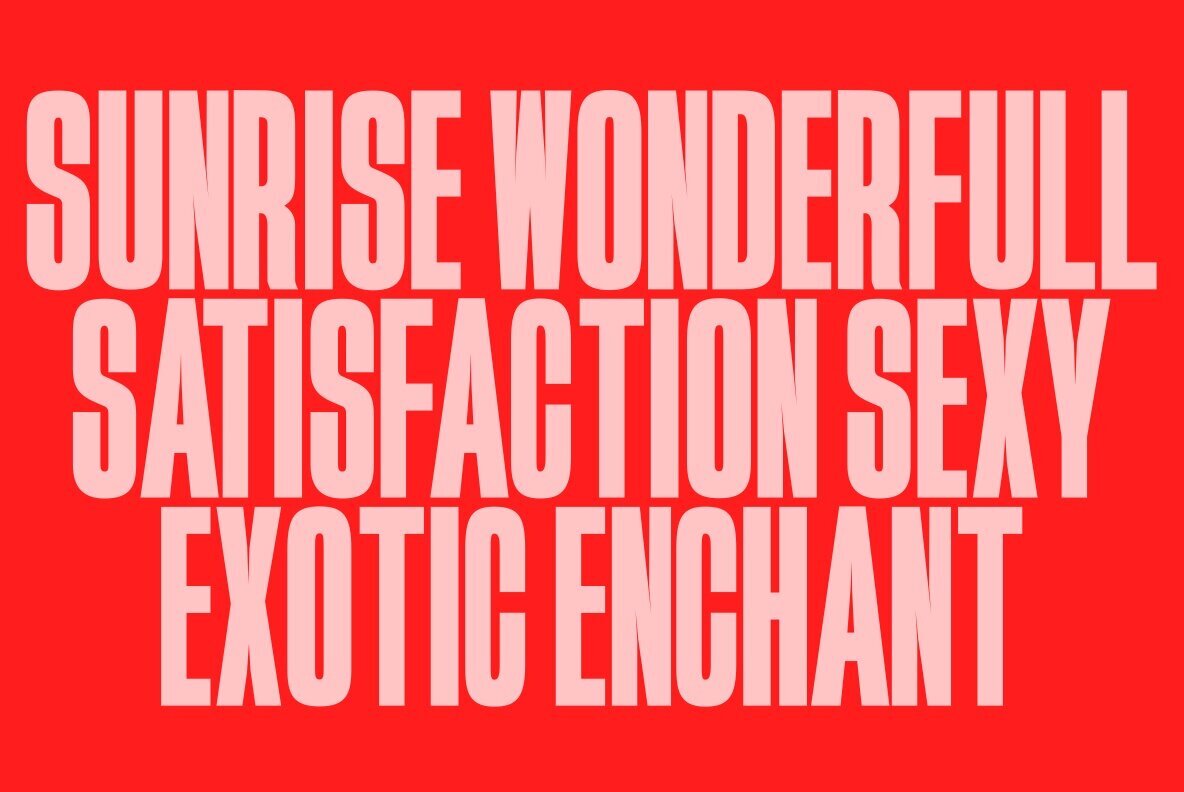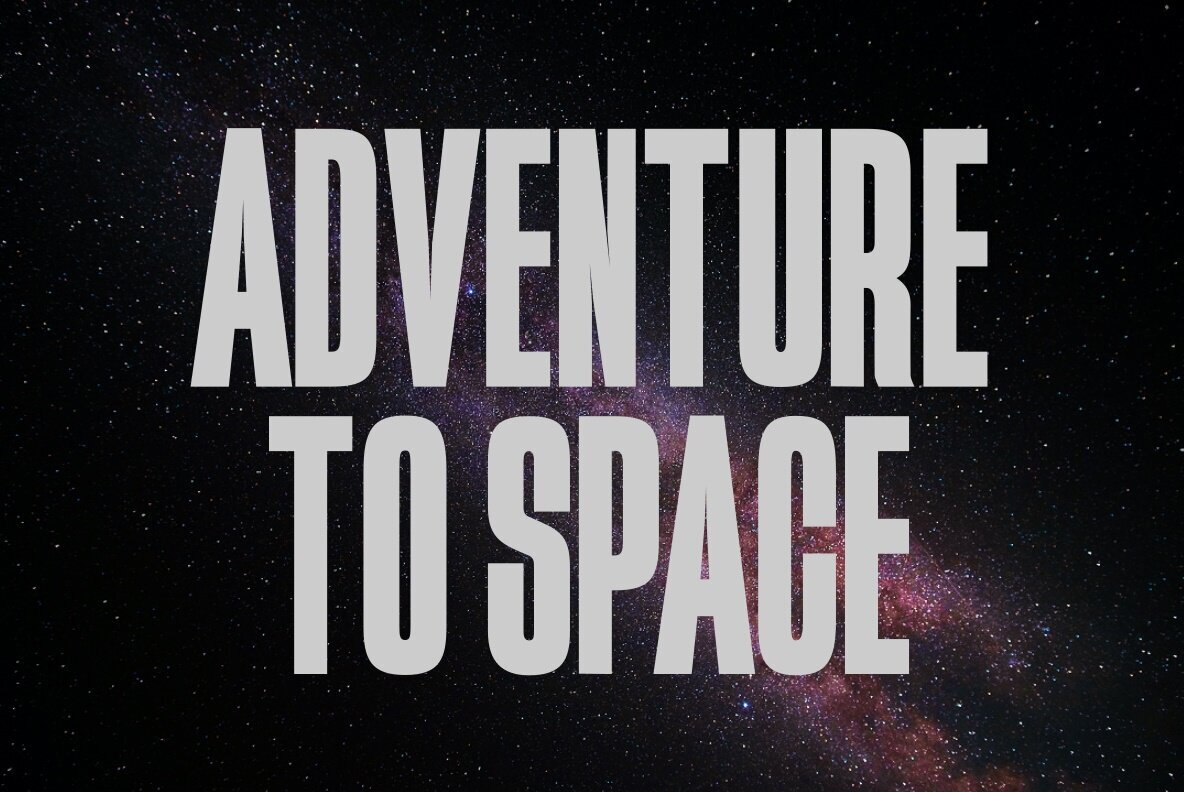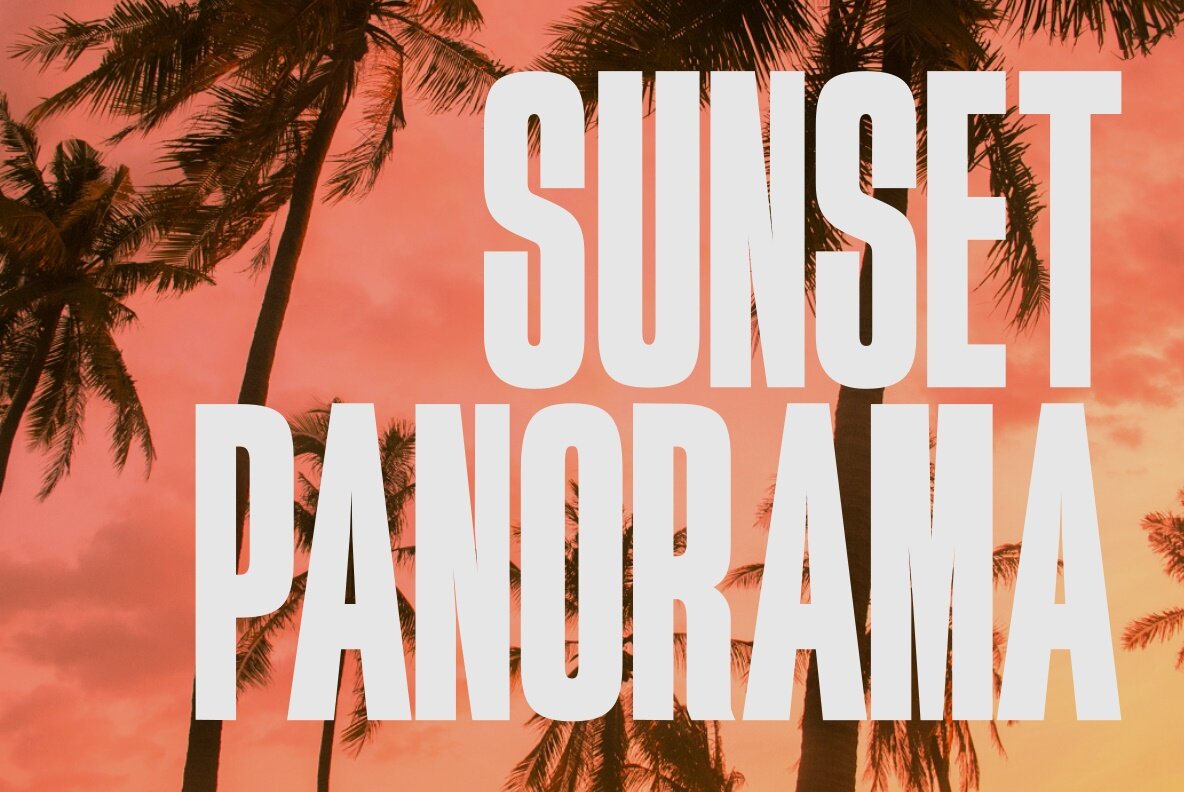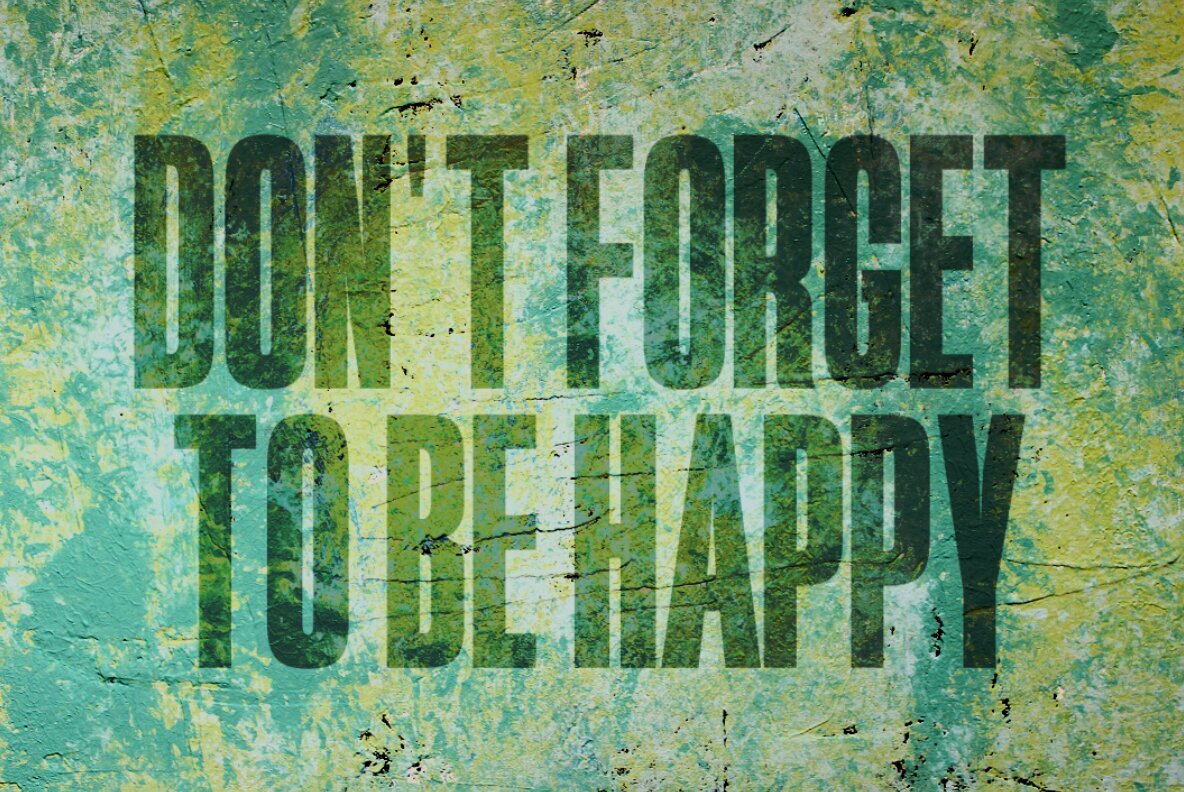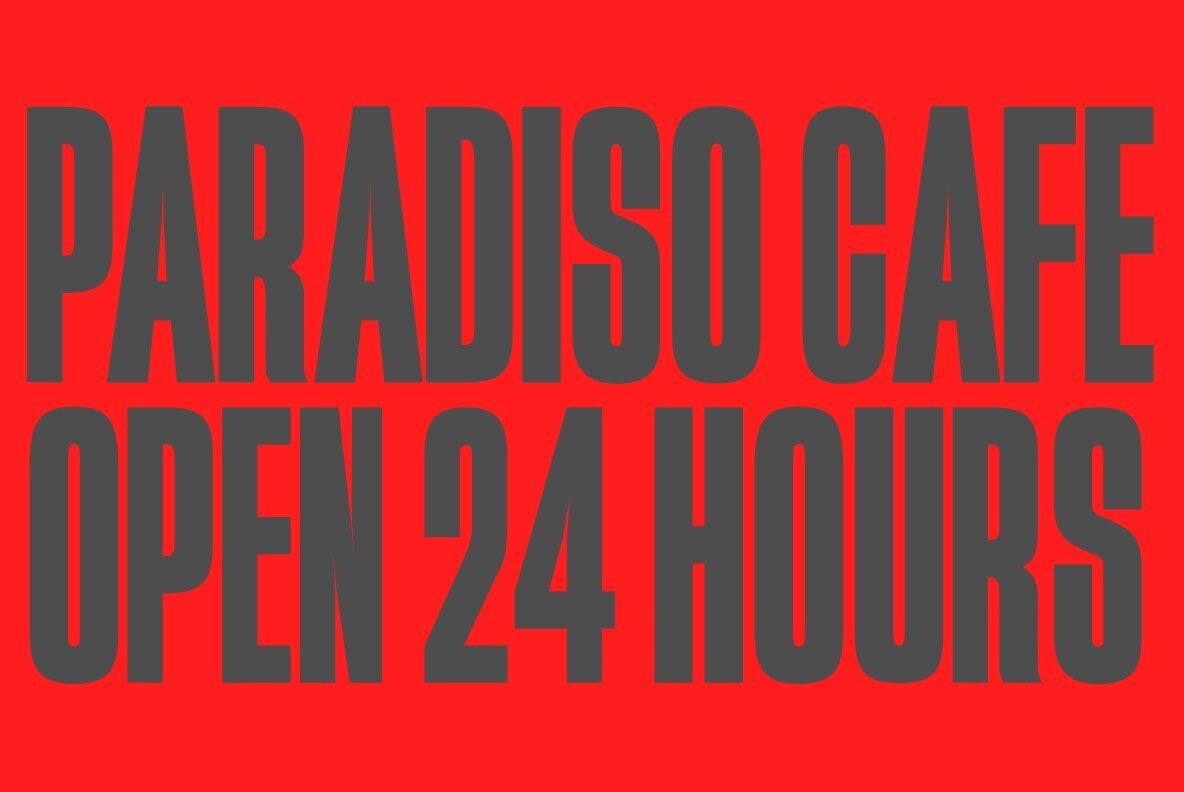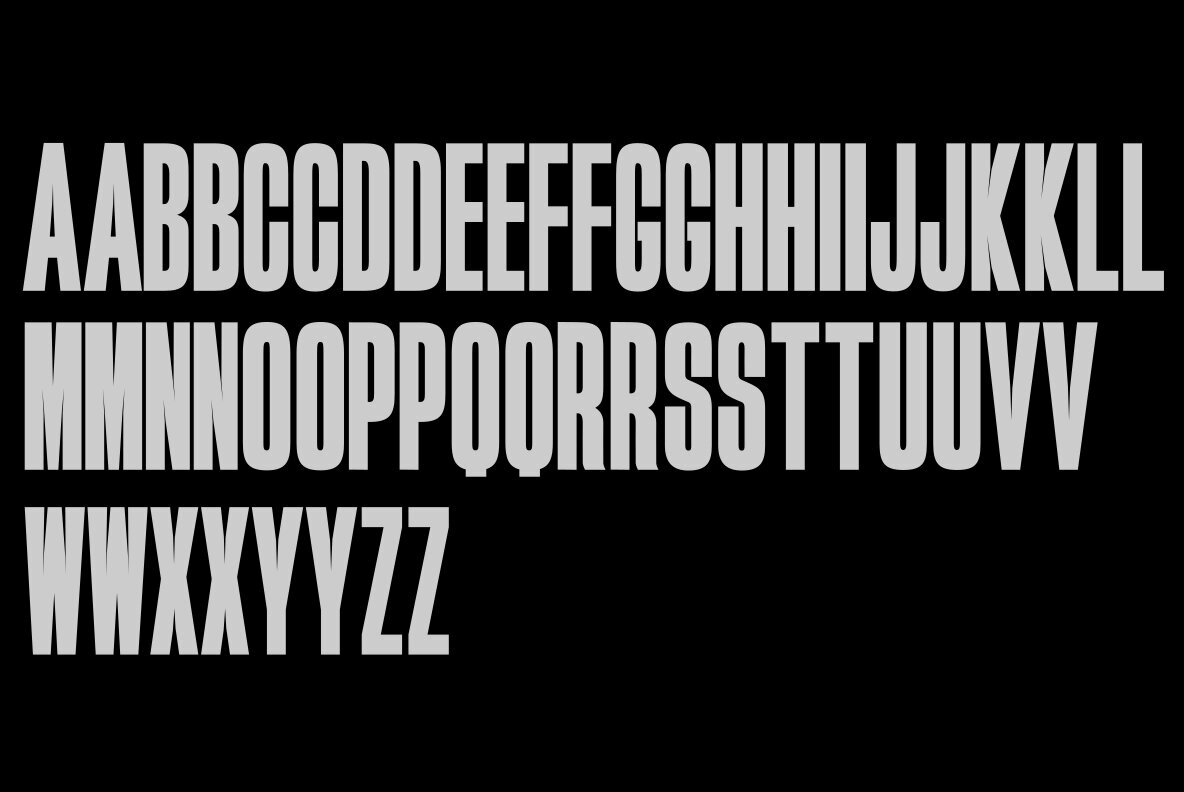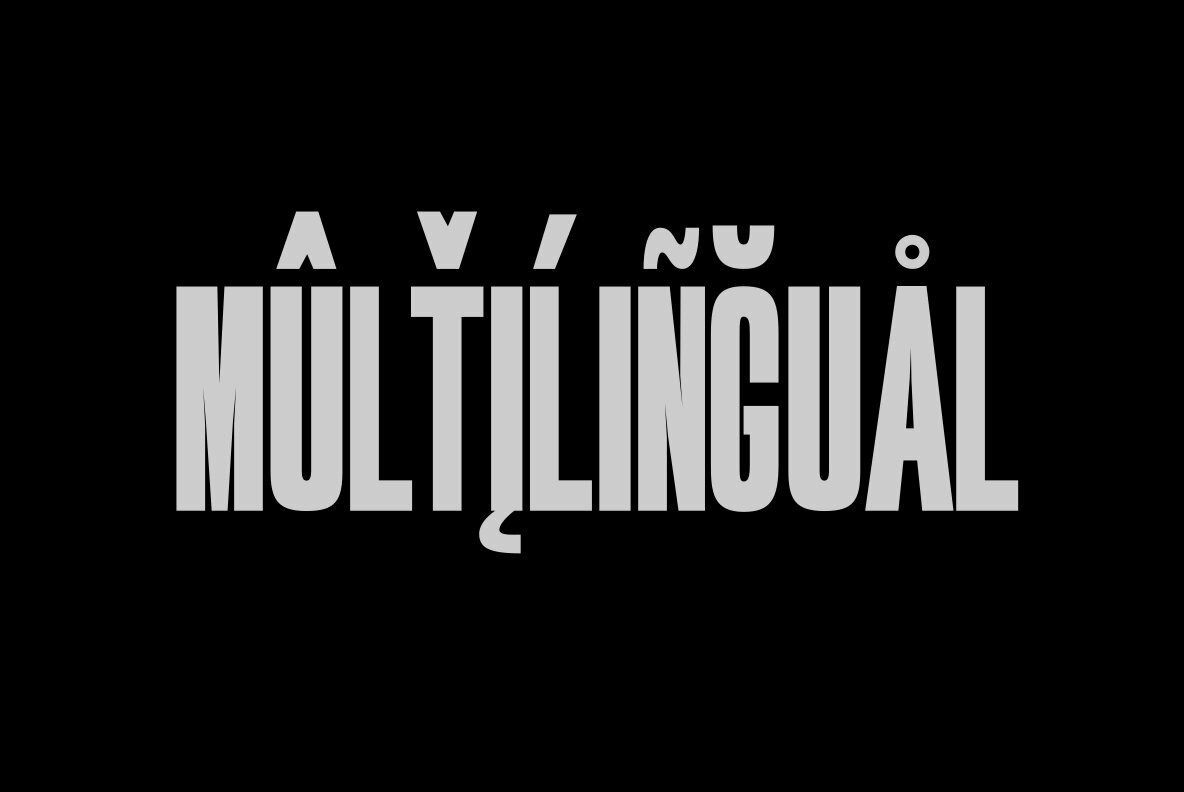
Paradiso Font
Paradiso
Paradiso Eroded
Paradiso Broken
Inspired by the beauty of the sunset, Paradiso is made with attention to the beauty of the harmonious letterforms and the height of the ascender is made higher and the width of each letter is made in a ultra condensed style making this font look authentic and has the characteristics of deep beauty, this font is a Display category font which is suitable for use in designs such as billboards, logos, posters, and others.